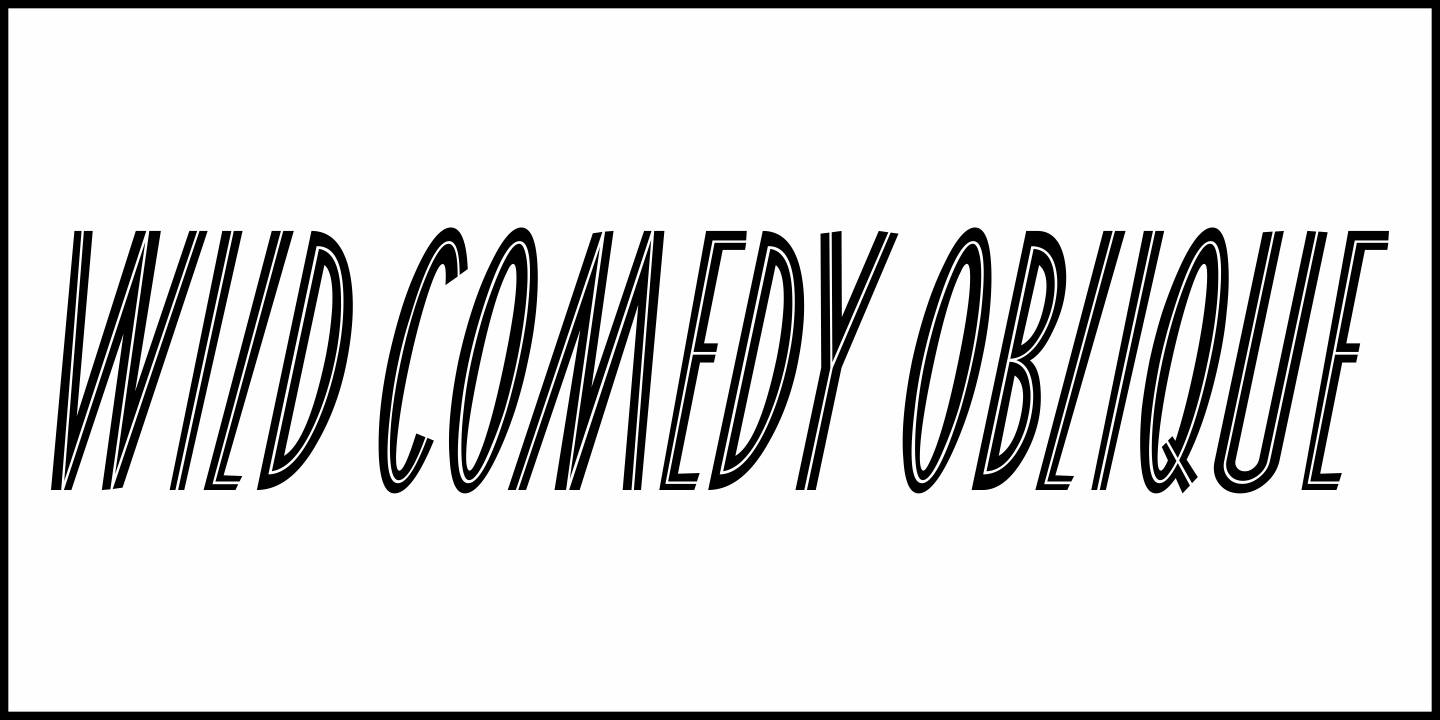
Wild Comedy
John Sigvard 'Ole' Olsen and Harold Ogden 'Chic' Johnson were musicians-turned-comedians who rose to fame in the zany 1938 Broadway musical review 'Hellzapoppin''.
The reprised their roles in the 1941 film adaptation of the show, and the opening title card of the film has 'Hellzapoppin'' hand lettered in a tall, condensed sans serif design with an inline.
This is now available as Wild Comedy JNL in both regular and oblique versions.